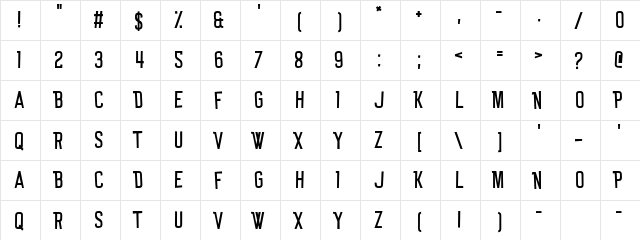
Tun Up De Ting Regular
| Designer | NAL |
Design Context for Tun Up De Ting Typeface
Tun Up De Ting is a composed and adaptable typeface that performs quietly and consistently across a wide range of design contexts.